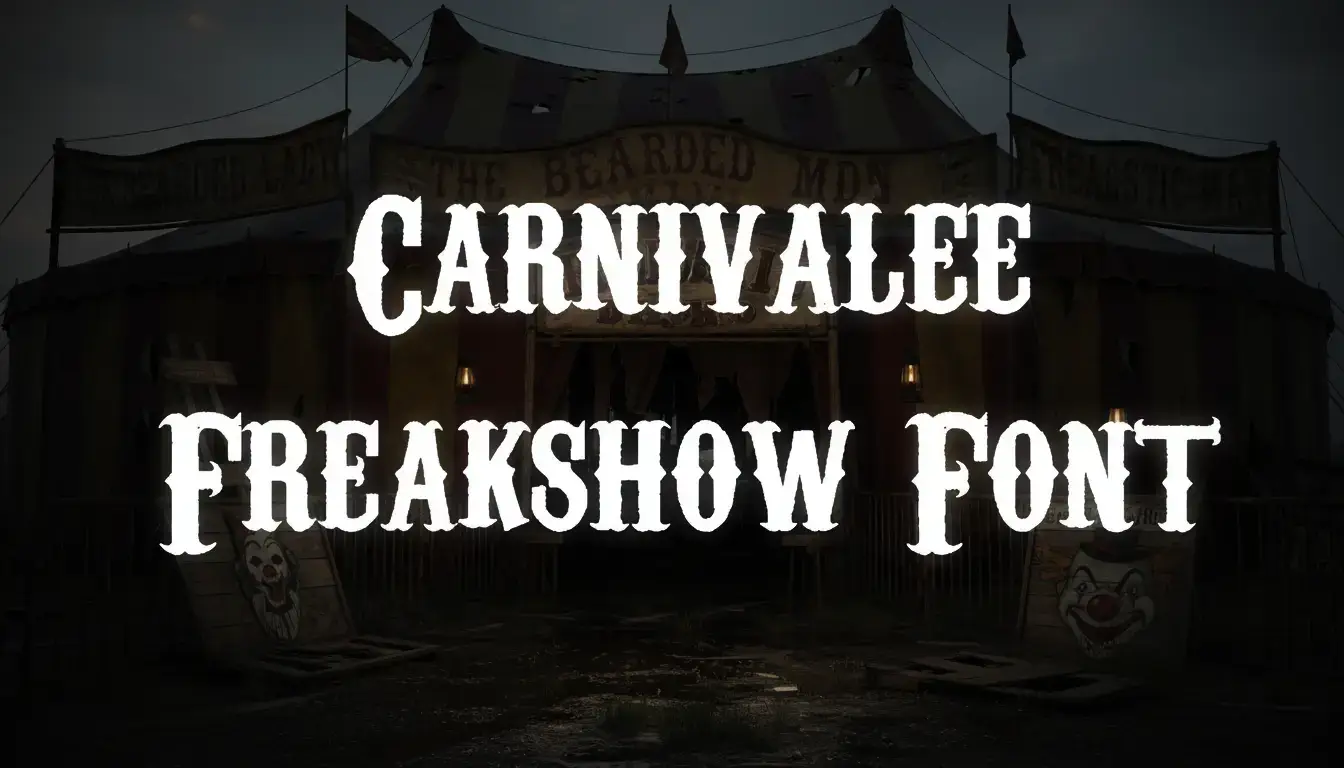
Carnivalee Freakshow Font
Carnivalee Freakshow
What You Can Type With Carnivalee Freakshow
Carnivalee Freakshow covers the full alphabet in upper and lowercase, plus all ten numbers, so you can set names, dates and prices without switching fonts. Common punctuation such as &, !, ? and @ is included as well. It also has the accented letters you need for Spanish, French, German, Portuguese and Italian. On top of that, it includes Greek and Cyrillic characters.
Where Carnivalee Freakshow Works Best
Carnivalee Freakshow is a natural fit for rodeo posters, saloon signs and country music flyers. Try it in brown, rust or cream on a paper texture for the full old-west look.
Does Carnivalee Freakshow support accented letters?
Yes. Carnivalee Freakshow includes the accented letters needed for Spanish, French, German, Portuguese and Italian, so it works for more than just English.
What fonts pair well with Carnivalee Freakshow?
A sturdy slab serif or a simple serif works well for the smaller text.